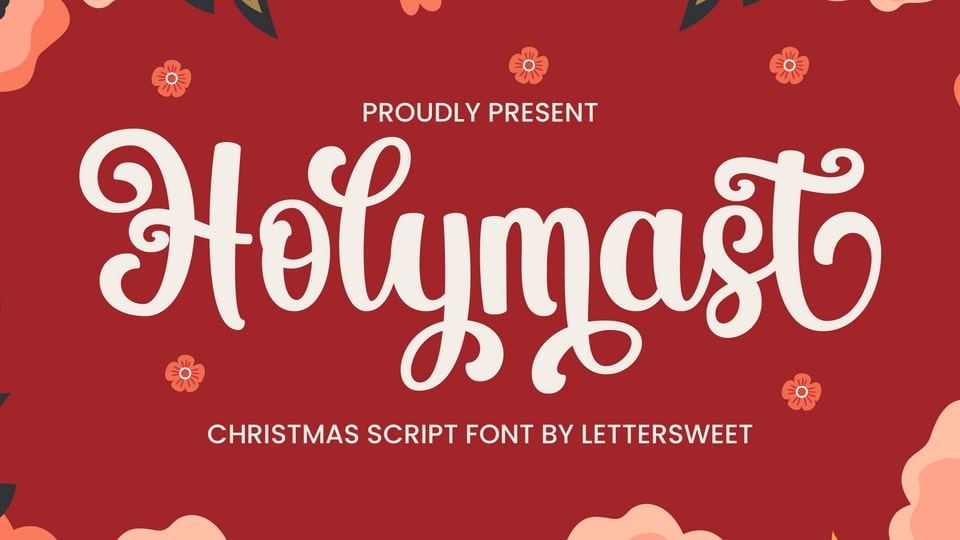
Download Holymast font, a beautiful and sweet handwritten typeface. Holymast is fresh, clean, and elegant. This font will look amazing in a great number of projects, both formal and informal.